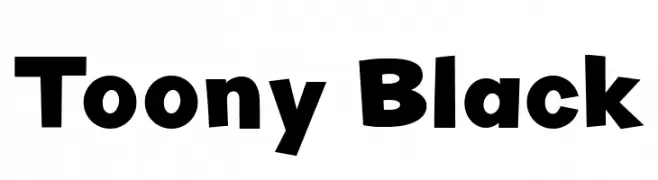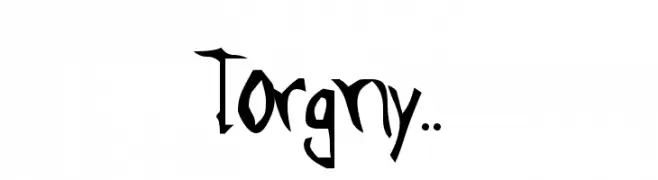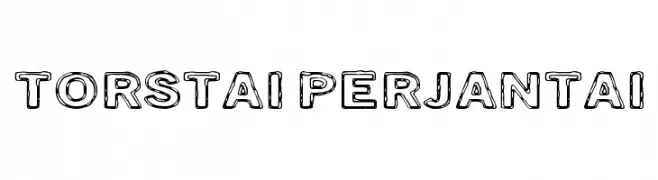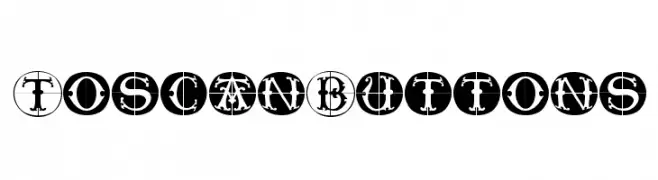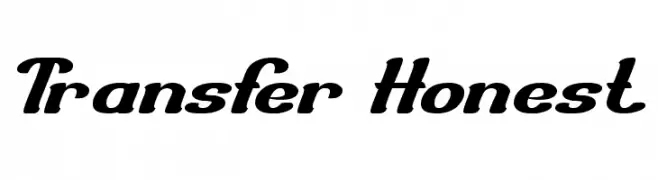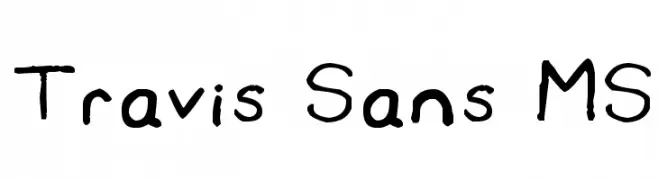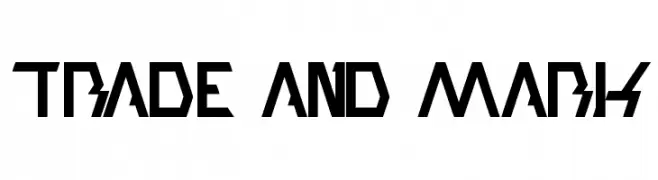
• Toony Black
A bold, playful font with a cartoonish style and rounded characters.
• Torgny..
• Torstai perjantai
A bold, outlined font with a playful and artistic style.
• ToscanButtons
A decorative font with characters enclosed in circular outlines, featuring a vintage and artistic style.
• TotalFreak
A textured, distressed font with a dynamic and rugged appearance.
• Tough Guys
A bold, illustrated font featuring rugged characters within each letter.
• trade and mark
A bold, geometric font with sharp angles and a futuristic style.
• trade and mark
A bold, geometric font with sharp angles and a futuristic style.
• Transfer Honest
• Travis Sans MS
A playful, handwritten font with a casual and informal style.